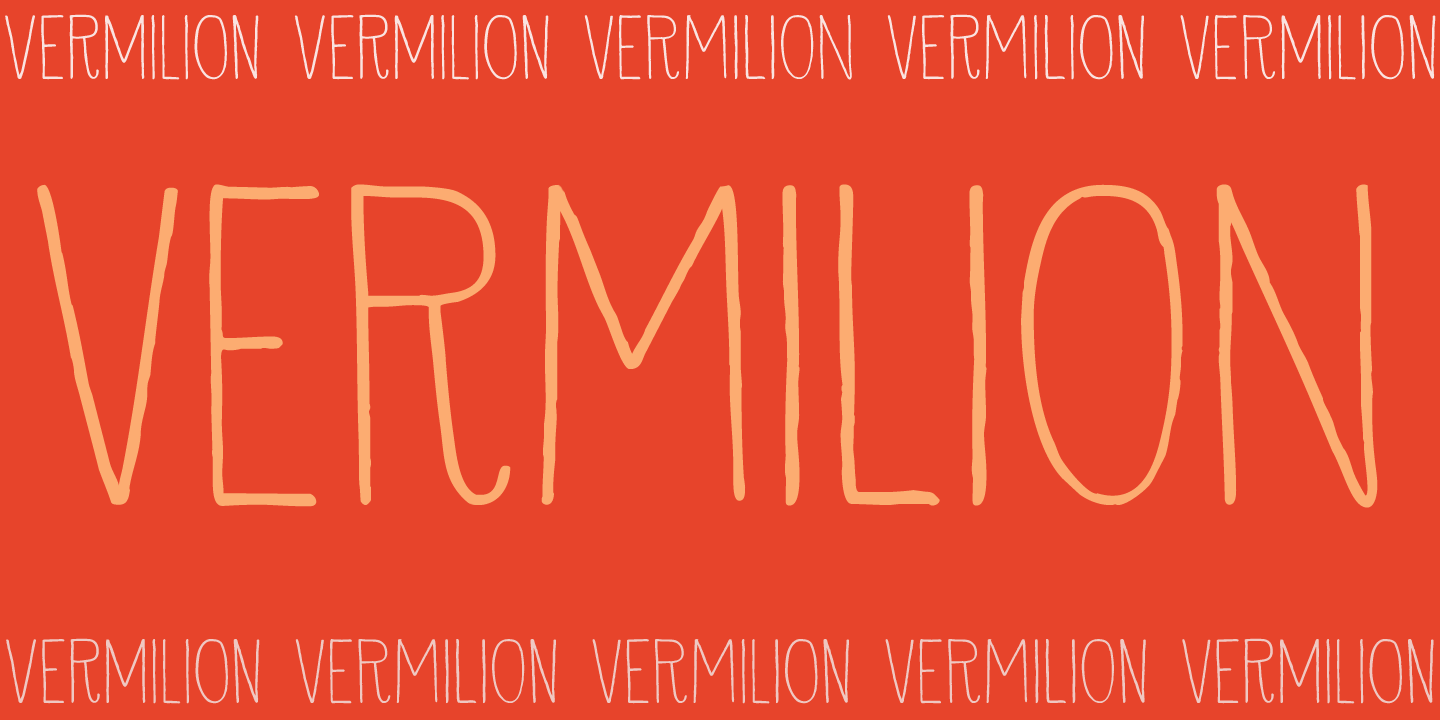
The Vermilion Font is perfect for luxury fashion branding, high-end cosmetics packaging, elegant wine labels, premium jewelry advertisements, sophisticated restaurant menus, upscale boutique signage, artistic gallery exhibitions, refined wedding invitations, exclusive event materials, and prestigious brand communications.
What makes the Vermilion Font exciting is its captivating ability to embody the rich intensity and passionate elegance of its namesake color through sophisticated letterforms that radiate warmth, luxury, and artistic refinement. This stunning typeface features graceful curves, refined proportions, and passionate character variations that instantly convey opulence, creativity, and the bold confidence of premium brands. Each letter appears to glow with the vibrant energy of vermilion pigment, creating an atmosphere of artistic sophistication and luxurious exclusivity.
The Vermilion Font family includes regular, italic, bold, and elegant script versions, along with artistic flourishes, luxury ornaments, and sophisticated decorative elements that enhance its premium appeal across various high-end design applications.
Whether you're creating luxury brand identities or designing exclusive premium materials, Vermilion Font Free Download delivers unmatched elegance and authentic luxury sophistication. Its beautifully crafted letterforms ensure perfect readability while maintaining that essential premium character that speaks to discerning audiences seeking genuine quality and refinement. The font's luxury features include contextual alternates, elegant ligatures, and artistic variations that automatically create sophisticated premium aesthetics. Luxury brand designers and high-end creative professionals consistently choose this font for projects requiring genuine exclusivity and artistic luxury appeal. The Vermilion Font transforms ordinary text into passionate expressions of artistic luxury, making it an invaluable treasure in any designer's premium typography collection.